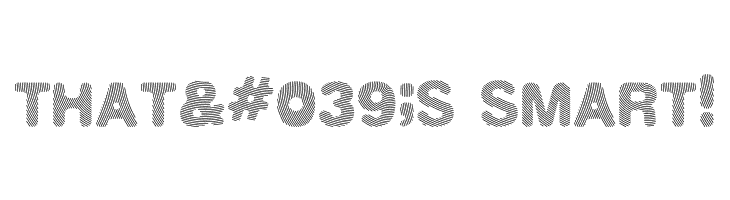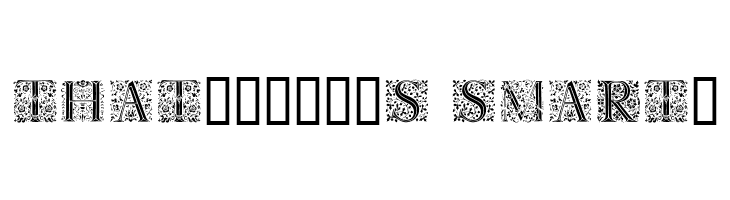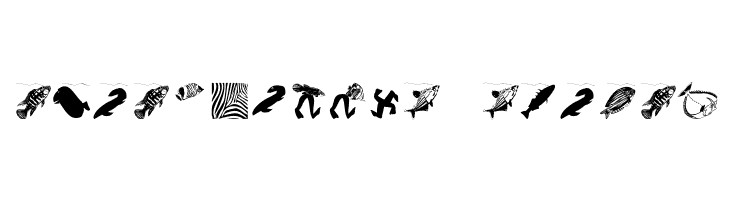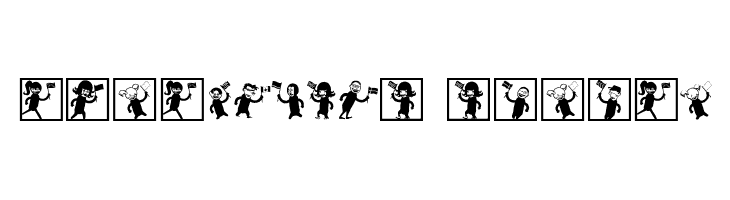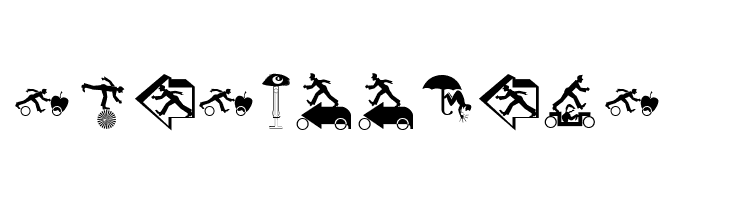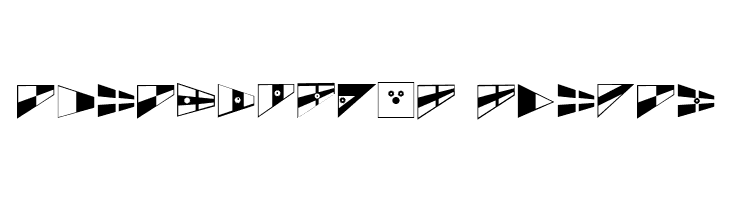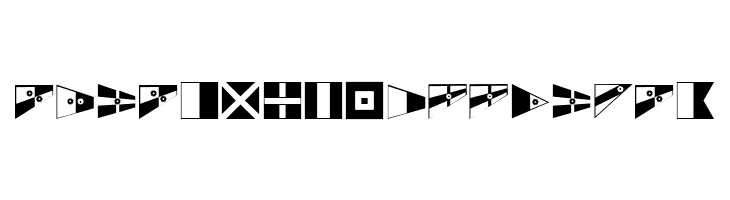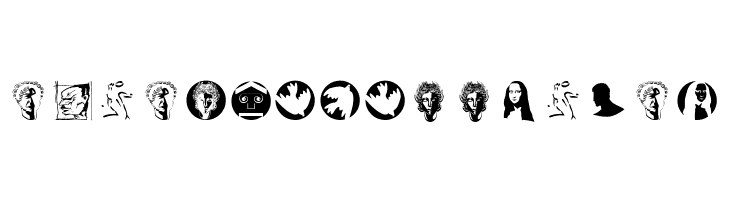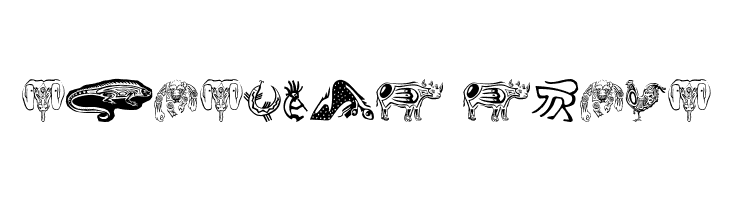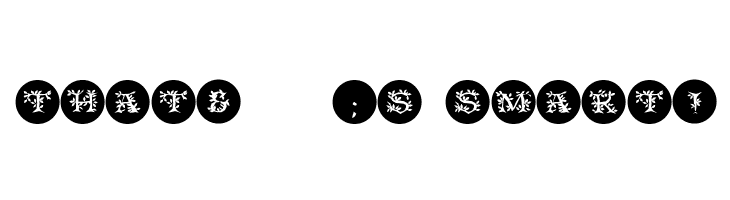
A bold, brush-style font with dynamic, calligraphic strokes.
A pictorial, decorative font mimicking ancient cave art and petroglyphs.
A fine arts-themed decorative dingbat font with detailed art-related icons.
A bold, modern font with diagonal line textures for a dynamic look.
A cartoon illustration font with romantic and whimsical character scenes.
A whimsical decorative font using fish illustrations as characters.
Font made of fish and diver illustrations for each character.
A decorative font with characters designed as unique fish shapes within diamond frames.
Abstract, fish-themed decorative font with geometric symbols.
A whimsical, decorative font with fish hook-inspired elements.
A bold, brush-style font with dynamic, hand-painted strokes.
A pixelated, retro-style font with bold outlines and a uniform height.
A bold, dotted font perfect for decorative and playful designs.
A playful, bubble-themed decorative font with interconnected circular patterns.
A playful font made of interconnected circles, perfect for creative projects.
A whimsical, cartoon-style decorative font featuring flag-holding characters.
A decorative dingbat font of geometric flag and template icons.
A symbol font based on maritime signal flags with bold geometric patterns.
A display font made of diverse flag icons and symbols.
A bold, dynamic font with a three-dimensional effect and energetic design.
A bold, geometric font with a mosaic-like pattern.
A geometric, mosaic-style font with a modern and energetic appearance.
A bold, geometric font with a mosaic pattern, ideal for decorative use.
A bold, geometric font with a mosaic-like appearance.
A decorative font with geometric, mosaic-like characters.
A whimsical collection of dynamic pictograms depicting motion and activity.
Energetic pictogram font with action-themed icons.
An ornate, floral-themed decorative font with intricate botanical patterns.
An ornate, floral-themed serif font with intricate decorative details.
An ornate, floral-themed decorative font with intricate details.